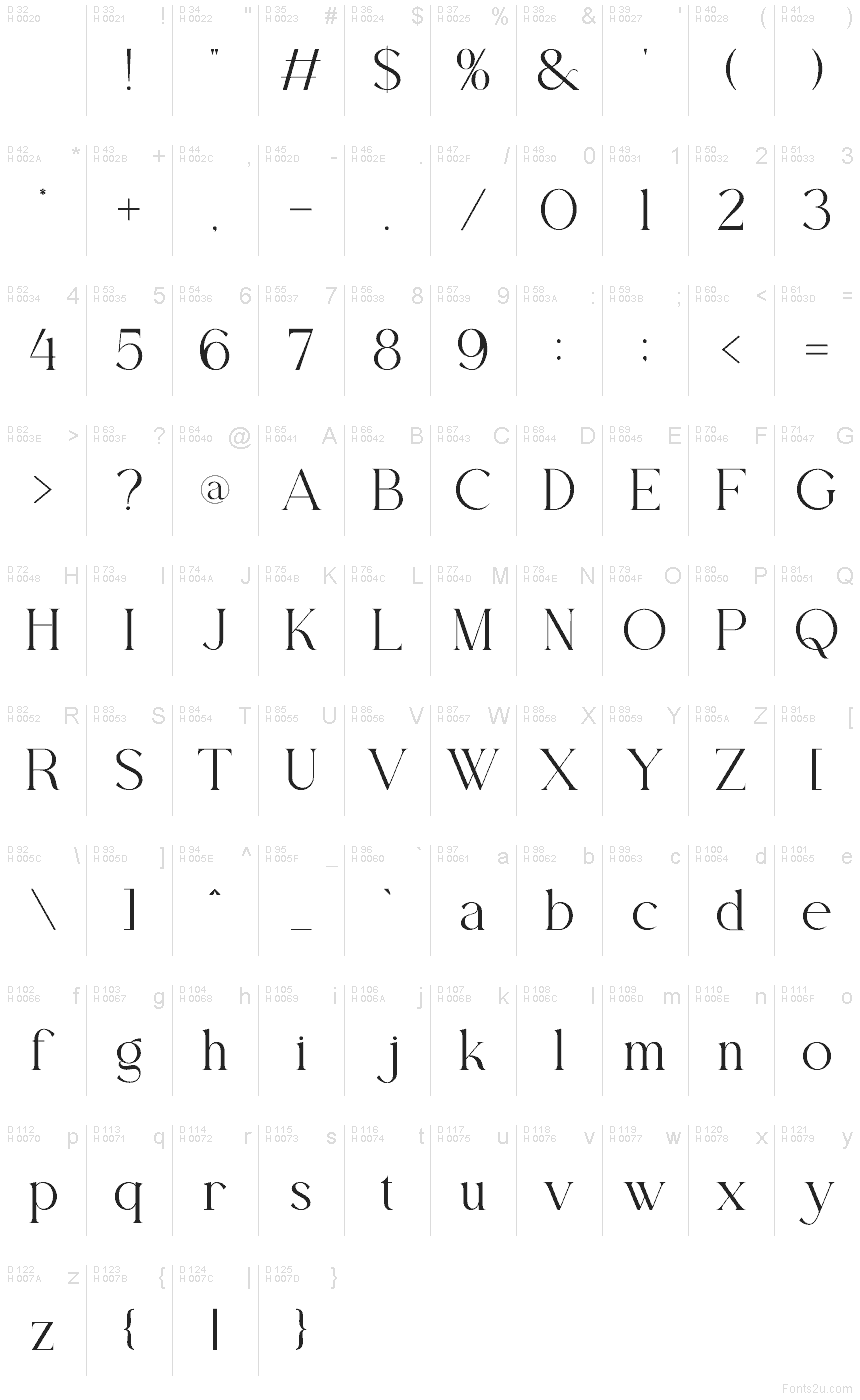
Ramosa
Ramosa font by Ermedia Studio is a free serif display font. Its defining feature is the sleek push-pull of thick verticals against hairline curves, with sculpted teardrop touches that feel both crisp and silky. The letters hold a luxurious tension—sharp where they need to be, open where they breathe—giving headlines a polished, editorial snap.
Using Ramosa, you get drama without noise, which shines on fashion branding, editorial covers, beauty packaging, refined logo wordmarks, invitations, posters, and elevated social posts. This free font reads best large, where the inky contrast can shimmer. Pair it with a calm grotesk sans to handle body copy and let the serif carry the spotlight.